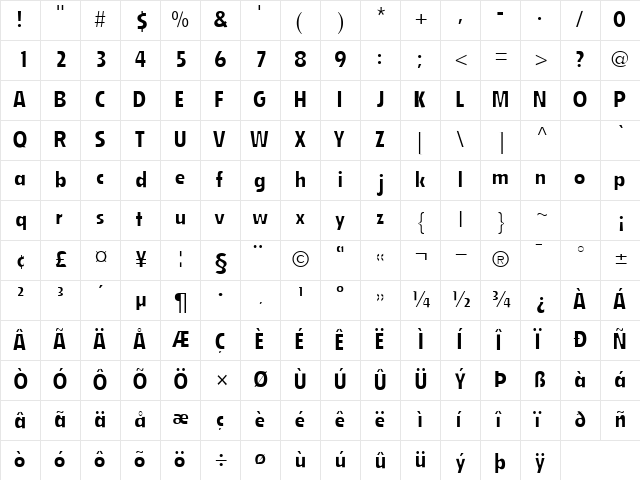
EmphasisCondSSK Regular Font Preview
EmphasisCondSSK Regular
EmphasisCondSSK Regular Font Details
Design Context for EmphasisCondSSK Typeface
EmphasisCondSSK takes a measured approach to typography — its balanced proportions and neutral character make it a reliable workhorse for both digital and print work. The condensed width makes it efficient for tight spaces without sacrificing legibility.